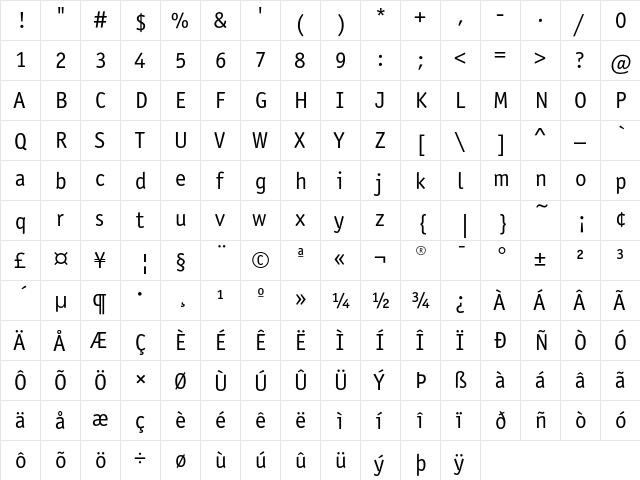
OfficinaSansEF Book
Design Context for OfficinaSansEF Typeface
OfficinaSansEF offers clean, dependable letterforms without strong stylistic allegiance, making it a practical choice for designers who need flexibility.
Pro Tip: Use OfficinaSansEF in both headline and body roles to test its range before committing to a single application.